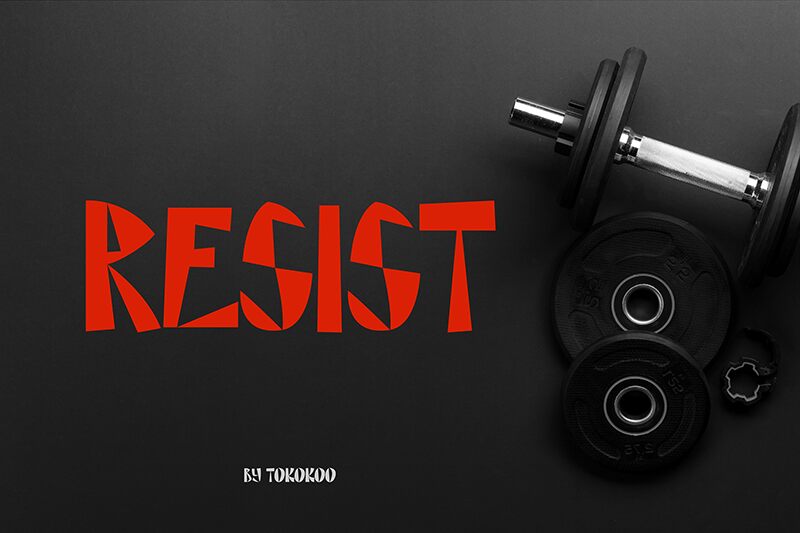
RESIST
Resist font designed by Tokokoo Studio is a free display font with cartoon features and condensed characters. Its geometric structure with mostly angular letterforms and bold contrast gives it a modern aesthetic that’s intriguing and new. With asymmetrical lines, each single character has its own uniqueness which makes the font attractive as a whole.
Resist works for all cartoon visualization contexts varying between logos, posters, magazines, apparel designs, social media posts, presentations, invitation cards, packaging designs, movie titles, and mobile applications.